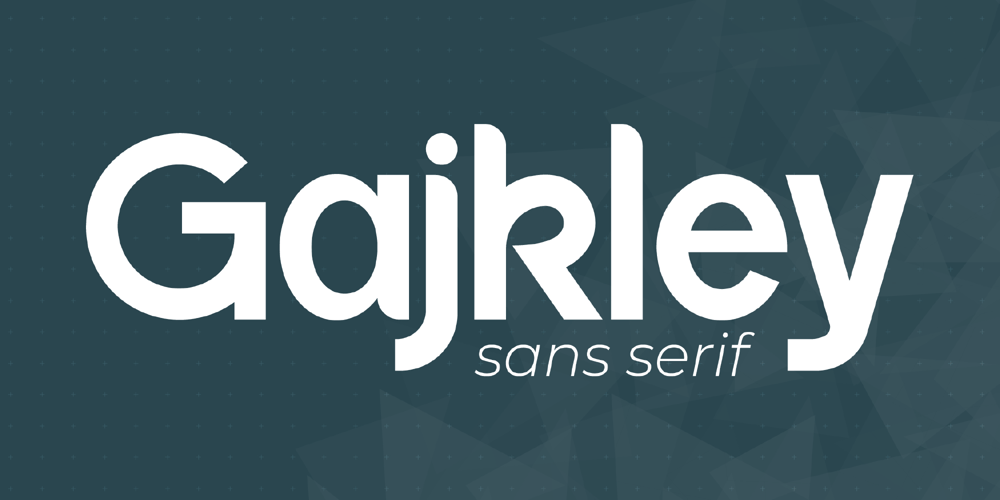
Gajkley Font Family was designed by Heru Utama Putra and published by Letterena Studios. Gajkley contains 2 styles and family package options. A serif modern and classic typeface that has its own unique style & modern look.This typeface is perfect for an elegant & luxury logo, book or movie title design, fashion brand, magazine, clothes, lettering, quotes, and so much more.